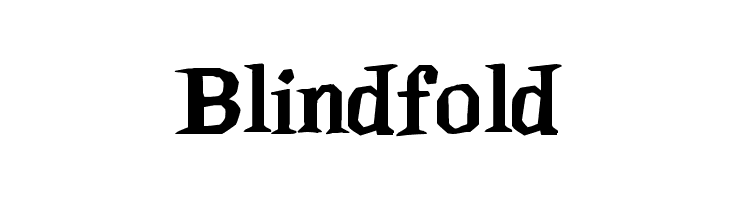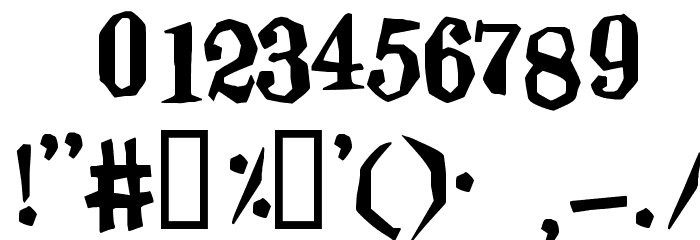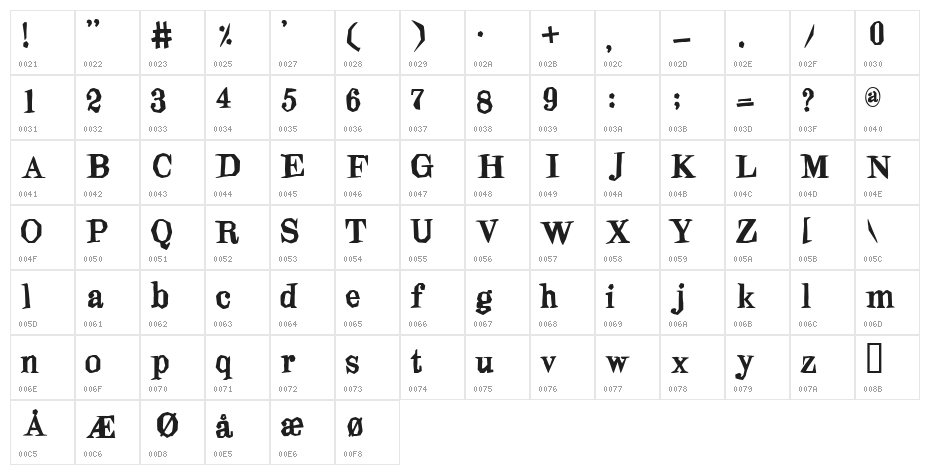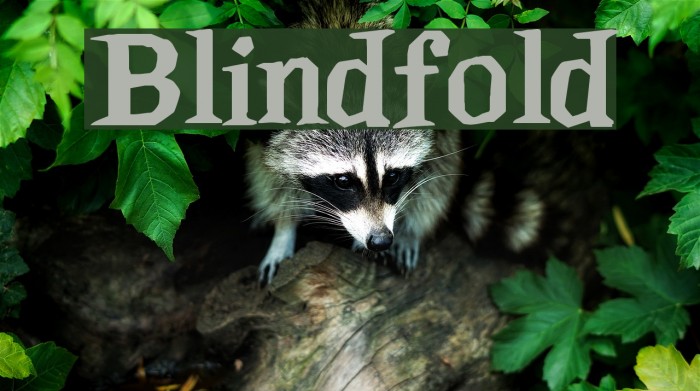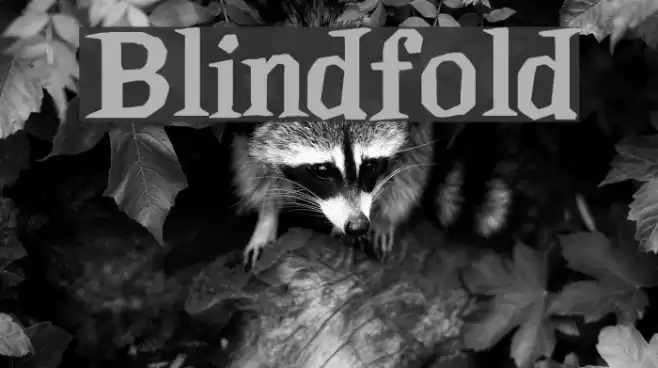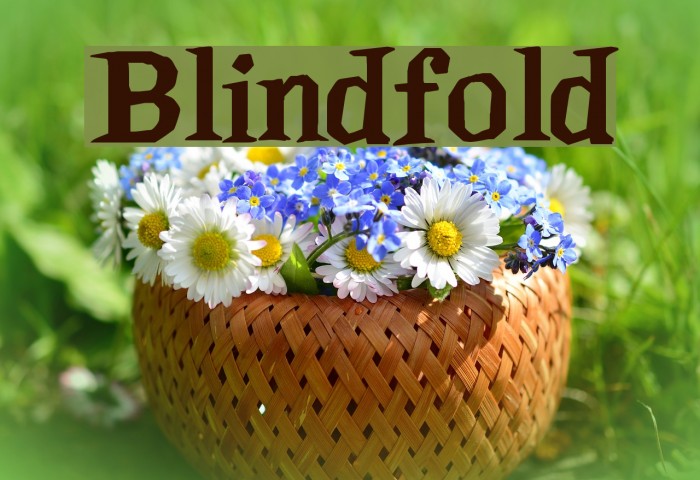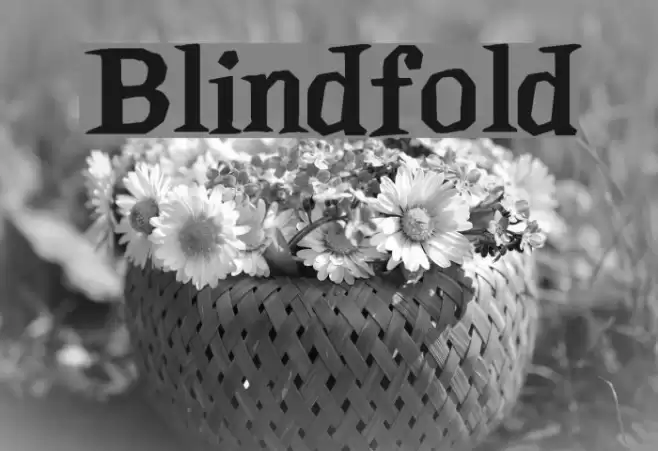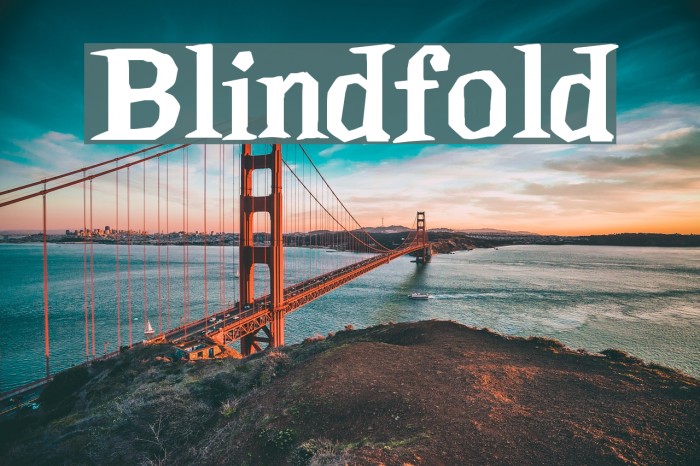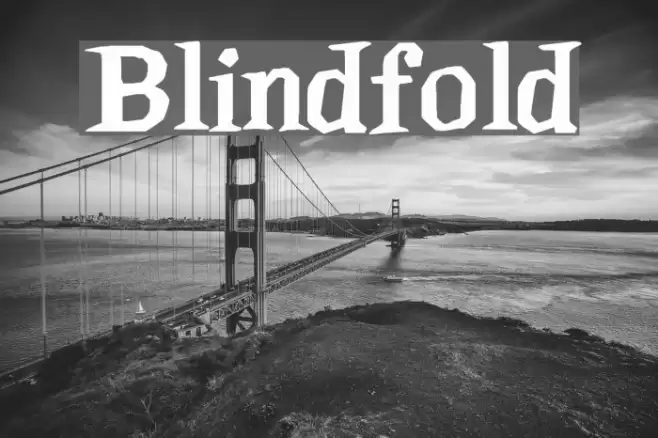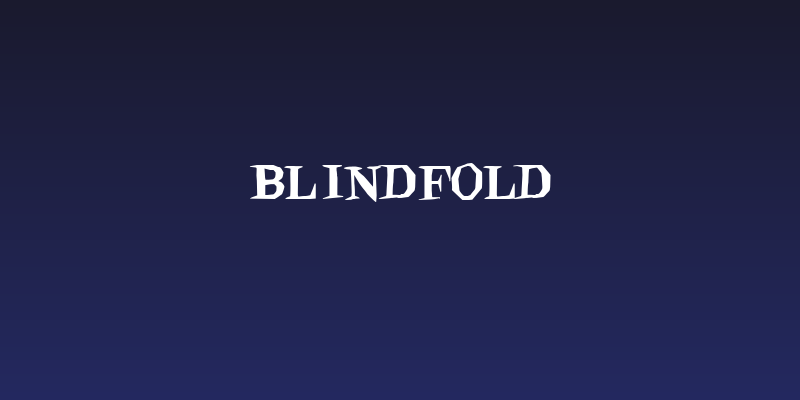
Blindfold Font
Blindfold Description
This font features a bold and dramatic style with a distinct medieval or gothic influence. The uppercase letters are characterized by sharp, angular edges and a slightly irregular form, giving them a hand-crafted appearance. The lowercase letters maintain this theme with a consistent weight and similar angularity. The numerals are bold and prominent, matching the overall aesthetic of the alphabet. Special characters are equally bold, with unique shapes that complement the font's medieval style. This font's strong visual presence makes it suitable for projects that require a historical or fantasy theme.
| Overall Style | Medieval, Gothic |
| Proposed Projects | Ideal for fantasy book covers, historical event posters, themed invitations, and video game graphics. |